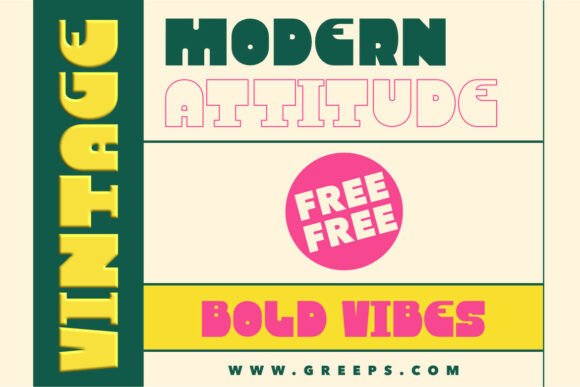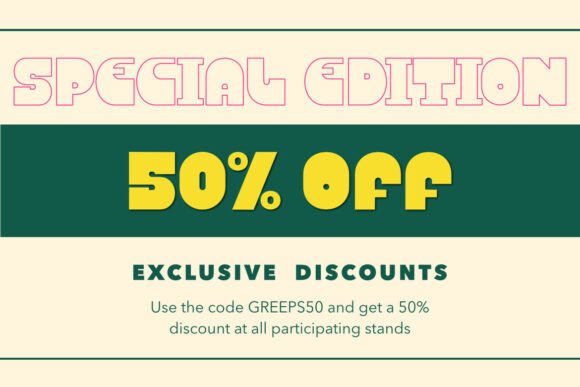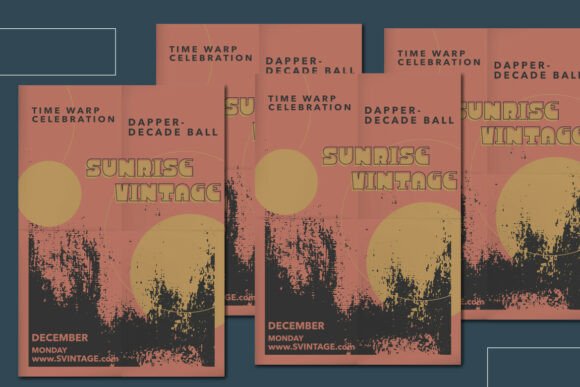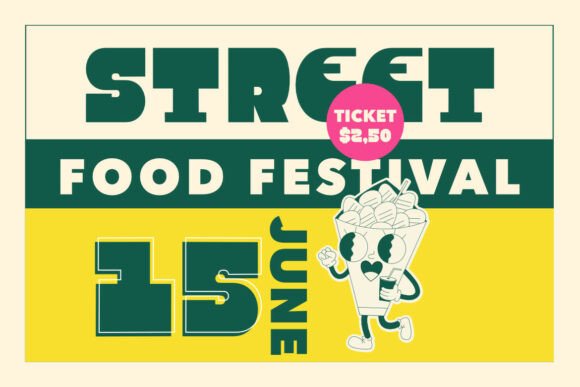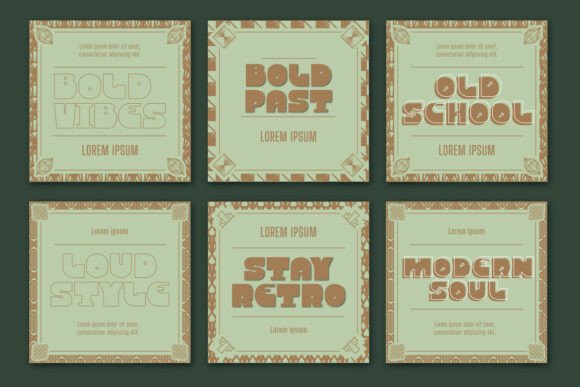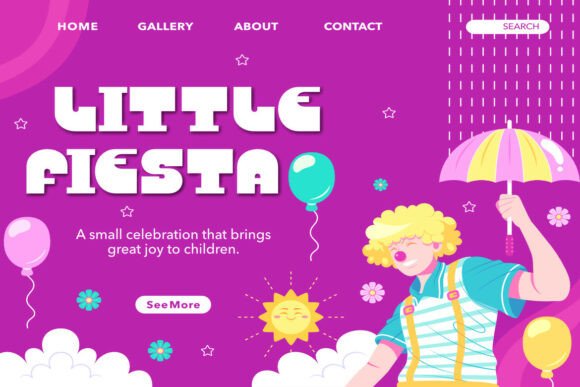
Discover the Bold Charm of Greeps: A Retro Display Font
I’ll never forget the design project that led me to Greeps Retro Bold Display Font. I was working on a vintage-themed poster for a client, and I was struggling to find the perfect font that captured the essence of classic retro typography. That’s when I stumbled upon Greeps, and it instantly became the star of the show. With its thick letterforms, rounded geometry, and strong visual presence, Greeps brought my design to life and exceeded my client’s expectations.
An Honest Review of Greeps Font
What I Love About Greeps ✨
- ✅ Retro charm with a modern twist: Greeps perfectly blends nostalgic vibes with a confident and modern display character.
- ✅ High impact and readability: The font’s heavy weight and solid structure make it ideal for bold headlines, branding, and statement typography.
- ✅ Clean and versatile design: Despite its retro inspiration, Greeps remains clean and adaptable for contemporary design needs.
- ✅ Perfect for large sizes: Greeps shines at large sizes, ensuring maximum readability and striking impact.
While Greeps is an excellent font, there are a few minor considerations to keep in mind:
- 🤔 Legibility at small sizes: As with many display fonts, Greeps may lose some legibility when used at very small sizes.
- 🤔 Limited suitability for body text: Due to its bold nature, Greeps is best used for headlines and titles rather than body text.
Greeps offers a range of OpenType features and glyphs that can enhance your typography. Look for stylistic alternates, ligatures, and swashes to add personality to your text. In supporting applications, you can access these features through the font menu or by using keyboard shortcuts.
The Designer Inspiration Behind Greeps
Greeps was inspired by the classic signage and advertising of the 1970s and 1980s. The designer aimed to capture the warmth, personality, and authority of vintage typography while making it clean and versatile for modern design needs. The result is a font that feels both nostalgic and contemporary.
| What is Greeps font best used for? | Greeps is ideal for bold headlines, branding, posters, and statement typography. |
| Can I use Greeps for body text? | While possible, Greeps is best suited for headlines and titles due to its bold nature. |
| Is Greeps suitable for digital use? | Yes, Greeps performs well in digital formats, especially at large sizes. |
Overall, Greeps Retro Bold Display Font is a fantastic addition to any designer’s toolkit. Its unique blend of retro charm and modern confidence makes it perfect for a wide range of projects. Give Greeps a try and see how it can elevate your typography!